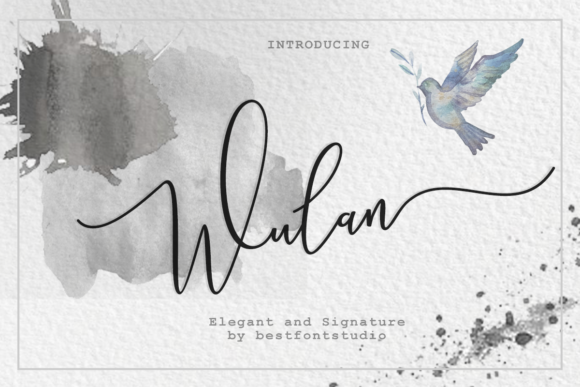
Wulan Script Font
Embark on a calligraphic journey with Wulan Script Font, a striking creation from Best Font Studio. This exquisite script font exudes a captivating blend of contemporary charm and timeless elegance. Let your imagination soar as you explore its distinctive letterforms, each crafted with meticulous care and attention to detail.
Wulan Script Font is a versatile masterpiece that seamlessly adapts to a wide array of creative endeavors. Its graceful strokes and flowing lines lend an air of sophistication to wedding invitations, branding projects, and social media graphics. Dive into the world of modern calligraphy and elevate your designs with this remarkable font.
Step into the spotlight with Wulan Script Font, a font that commands attention. Its bold presence and captivating curves add a touch of drama to posters, flyers, and marketing materials. Create eye-catching headlines and captivating slogans that leave a lasting impression on your audience.
Unleash your creativity with Wulan Script Font, the perfect companion for digital designs. Its clean lines and crisp edges render beautifully on screens of all sizes. Craft stunning website headers, engaging social media posts, and eye-catching e-commerce banners that resonate with your online audience.
With Wulan Script Font, the possibilities are endless. Its versatility knows no bounds, making it an indispensable tool for both personal and professional projects. Whether you're a seasoned designer or just starting your creative journey, this font is your gateway to a world of limitless expression.
Embrace the allure of Wulan Script Font and transform your creative vision into a tangible reality. Its contemporary flair and timeless appeal will elevate your designs to new heights. Download Wulan Script Font today and embark on a journey of artistic exploration like never before.